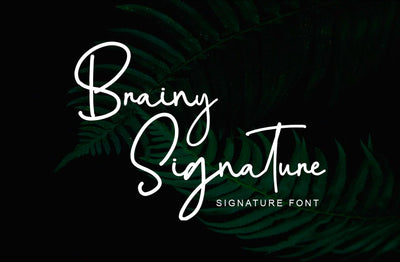
Brainy Signature Font
Brainy Signature is a handwritten signature font with unique curves and an elegant inky flow. Brainy Signature is perfect for Branding, photography, watermark, social media posts, advertisements, logos, invitations, product designs, label, stationery, wedding designs, product packaging, special events or anything that need handwriting taste.
This signature font comes with uppercase letters, lowercase letters, ligature, multi lingual support, numbers and punctuation.